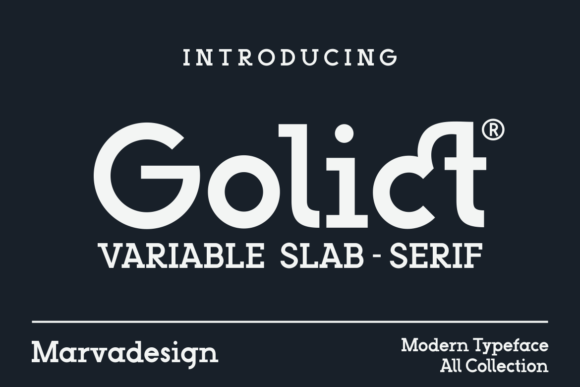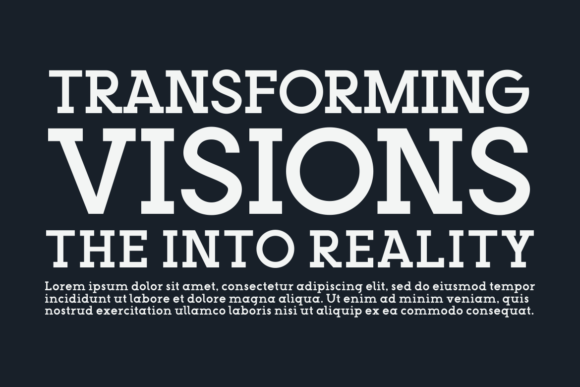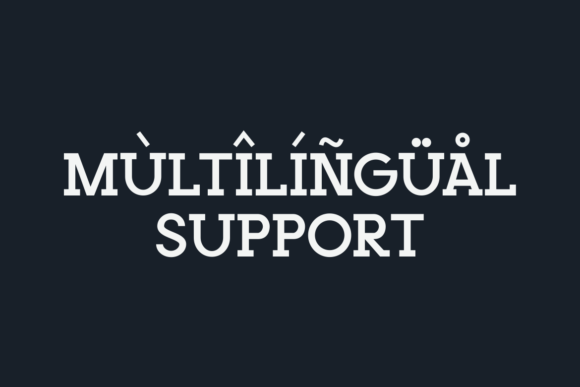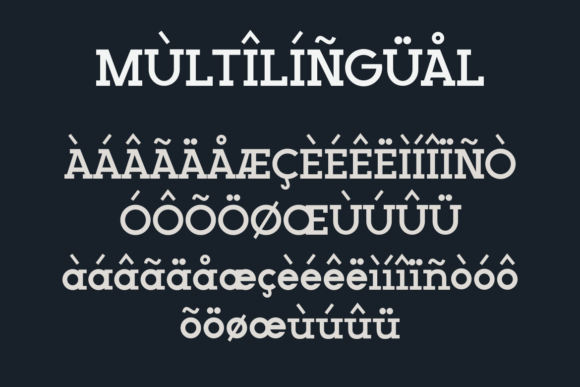
Golict is a bold and assertive slab serif font. No matter the topic, this font will be an incredible asset to your fonts’ library, as it has the potential to elevate any creation.